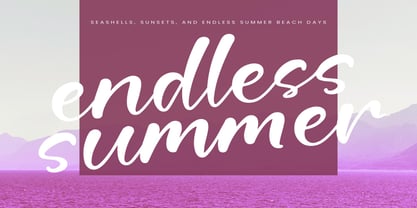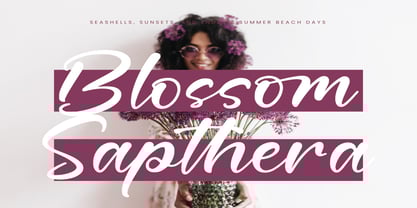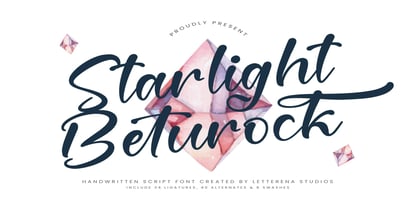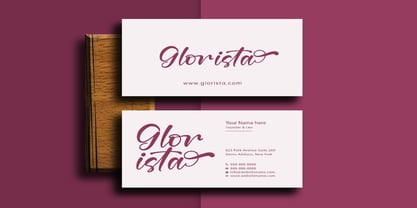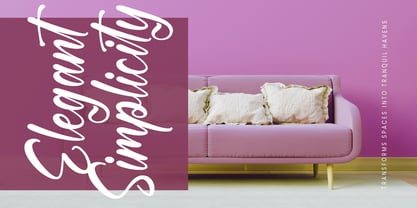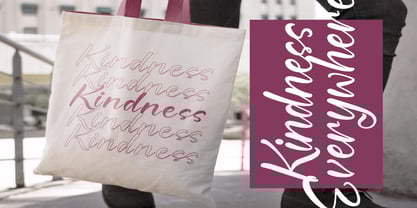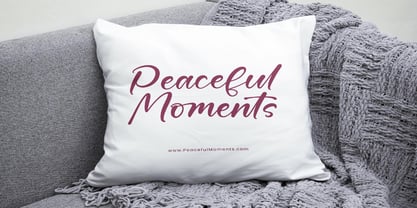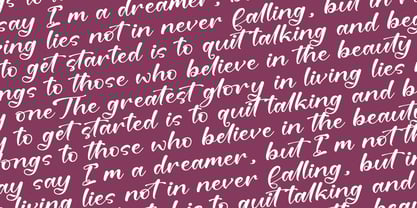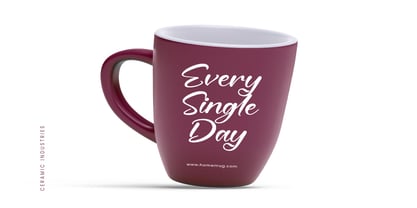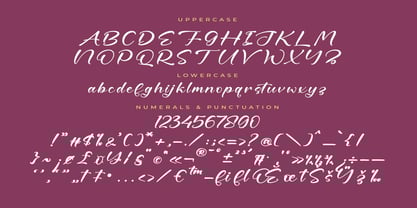
Starlight Beturock
by Letterena Studios
The Starlight Beturock Font Family was designed by Heru Utama Putra and published by Letterena Studios. Starlight Beturock contains 2 styles and family package options.
Starlight Beturock – Handwritten Script Font , from Letterena, is a Luxury Script font, suitable for any projects such as: logos, branding projects, homeware designs, product packaging, mugs, quotes, posters, shopping bags, t-shirts, book covers, name card, invitation cards, greeting cards, label, photography, watermark, special events, and all your other luxury and beautiful projects that need a Luxury Script taste.